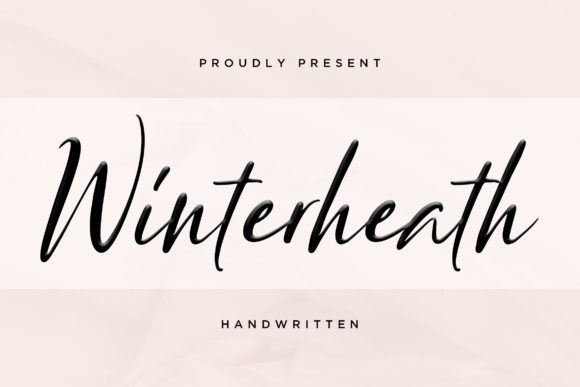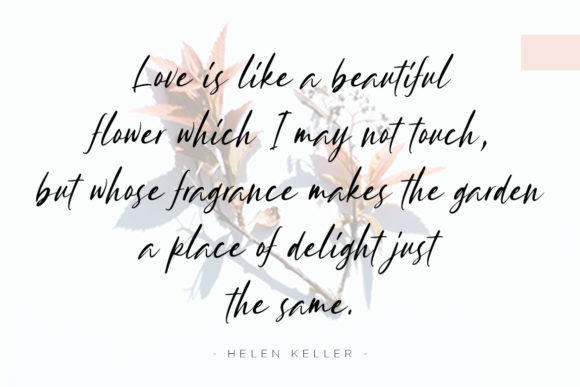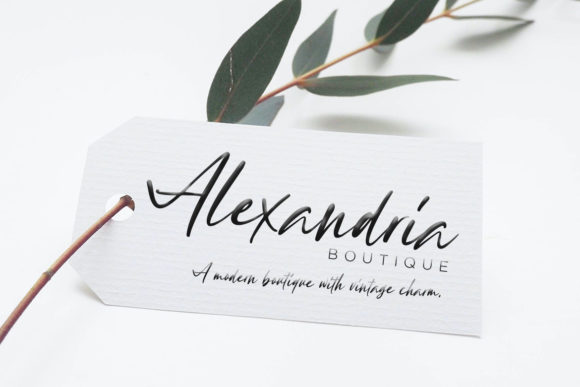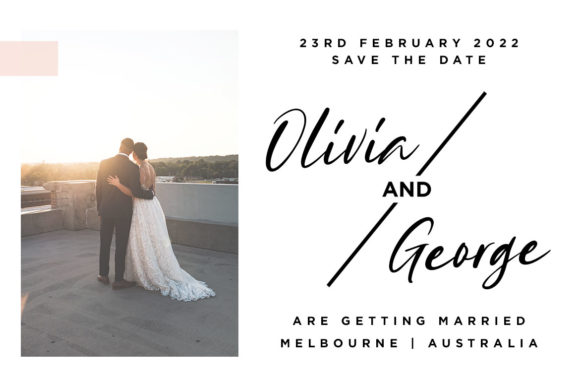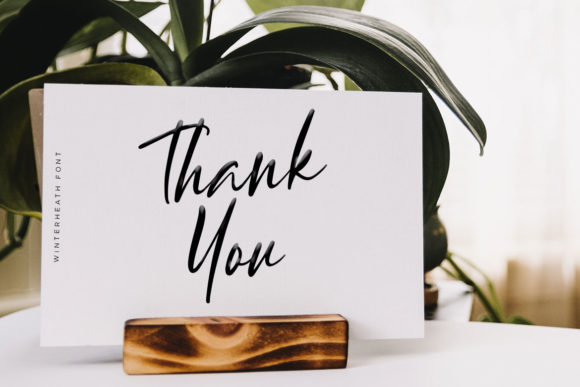
Winterheart Font
About Winterheart Font
Winterheath is a cute and luxury font with an incredibly friendly feel. This luxury and dynamic display is a simply wonderful addition to any font library and will look great in a wide range of arts & crafts projects.